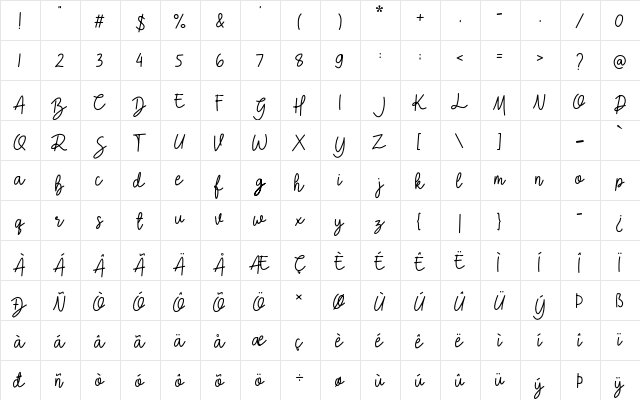
Crellia Script
Design Context for Crellia Typeface
Crellia brings a calligraphic fluidity to the page — its connecting strokes and expressive curves give it an unmistakably human quality.
Font Pairing: Combine Crellia with a simple geometric sans for maximum contrast — the tension between flowing curves and clean structure is a classic typographic pairing.
Pro Tip: Use Crellia for short runs of text — names, titles, or taglines. Extended body copy in script faces tires the eye quickly.